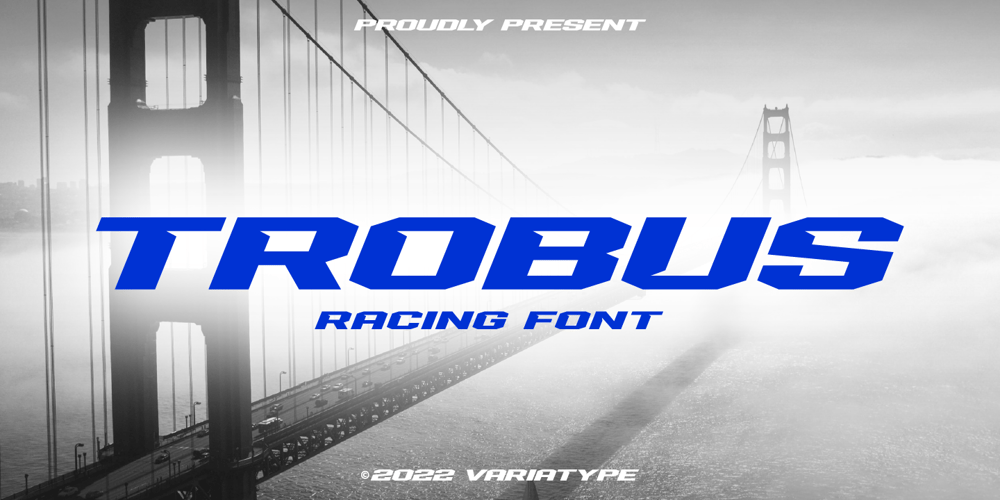
Trobus Font Family was designed by Mukhlis Muhammad and published by Variatype. Trobus contains 1 styles and family package options. Trobus is inspired by automotive and speed, it’s really suited to your branding or logotype and more design project, it’s flexible to any brand name.–Uppercase